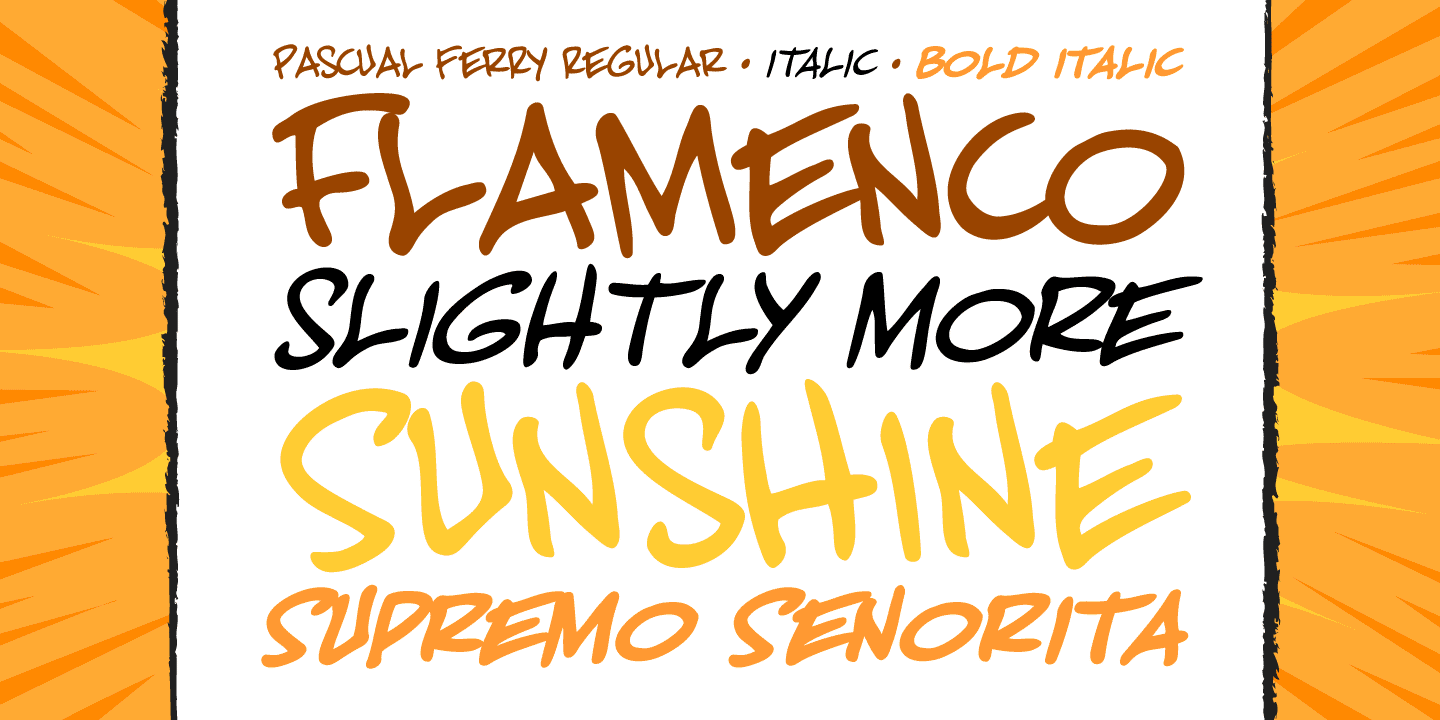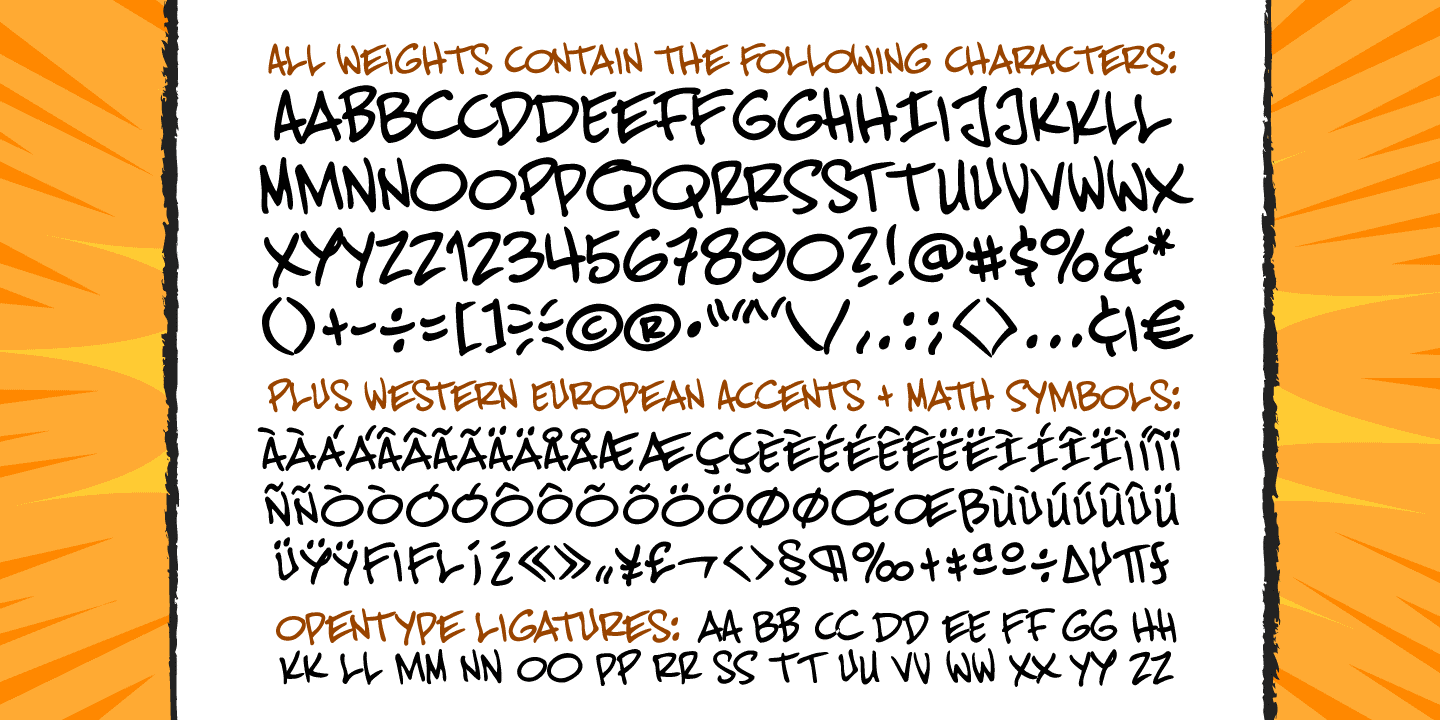
Pascual Ferry
Font Family by Comicraft Fonts
The slick and sexy letterforms of Ace ACTION COMICS artist, Pascual Ferry, are the latest to join our MASTERS OF COMIC BOOK ART font line. Pascual's work on the SUPERGIRLS storyline in ACTION made us want to lick each page -- but, y'know, not when anyone was looking... we know they're just comic book characters, they're not REAL and we don't fancy them or anything -- Uhhh... so we were delighted when Pascual invited us to create this stylin' sans souciant family of fonts for him. All we asked for in return was this smokin' alternate cover for the next issue of HIP FLASK... Hey, don't lick your monitor, you might get an electric shock...